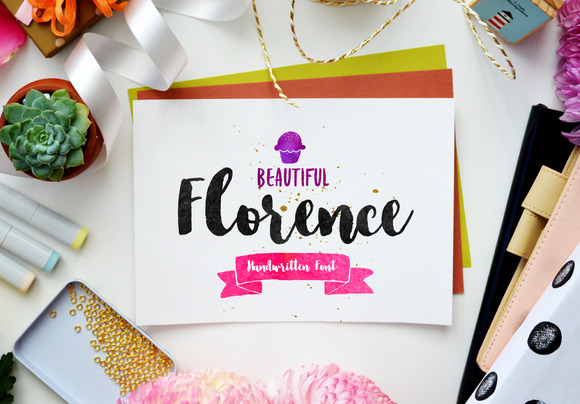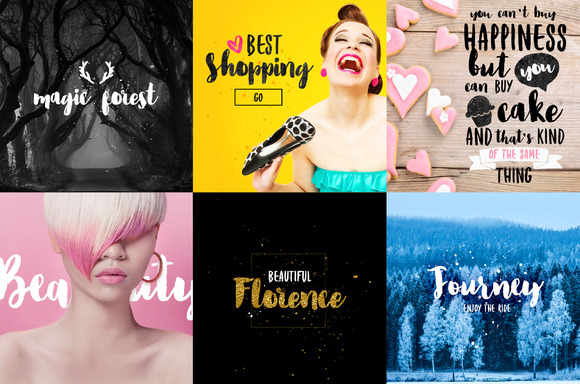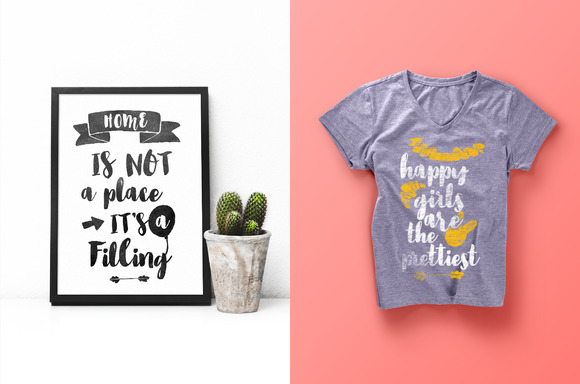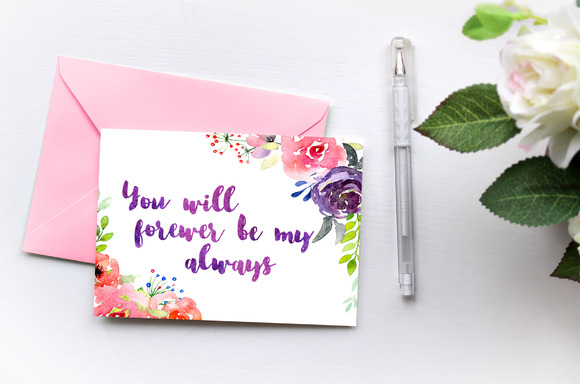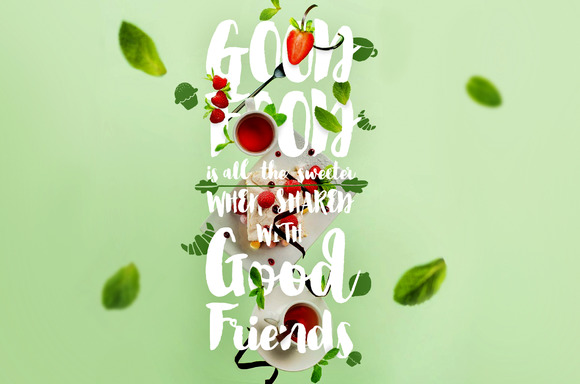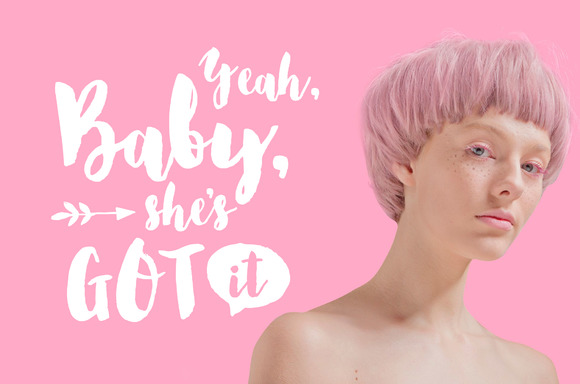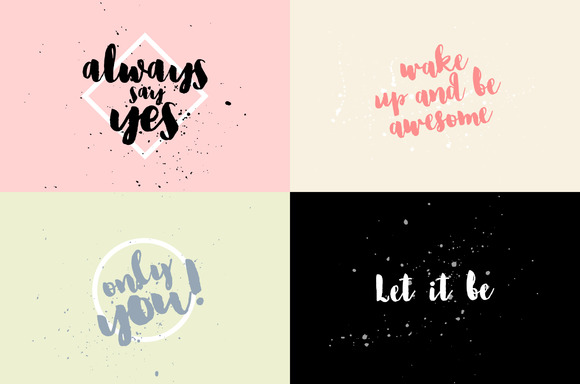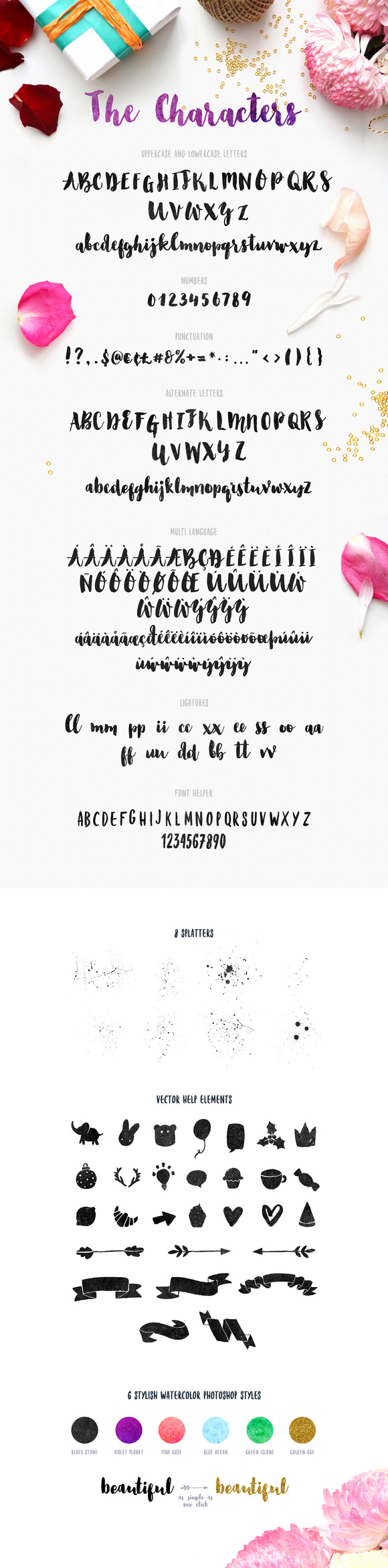
Florence Font
About Florence Font
Florence is a smooth brush-style font created by Kavoon. This font is perfect for apparel design, banners, signs, headlines and more.
Florence comes in 3 variations:
Florence Regular
Florence Alternate
Florence Helper